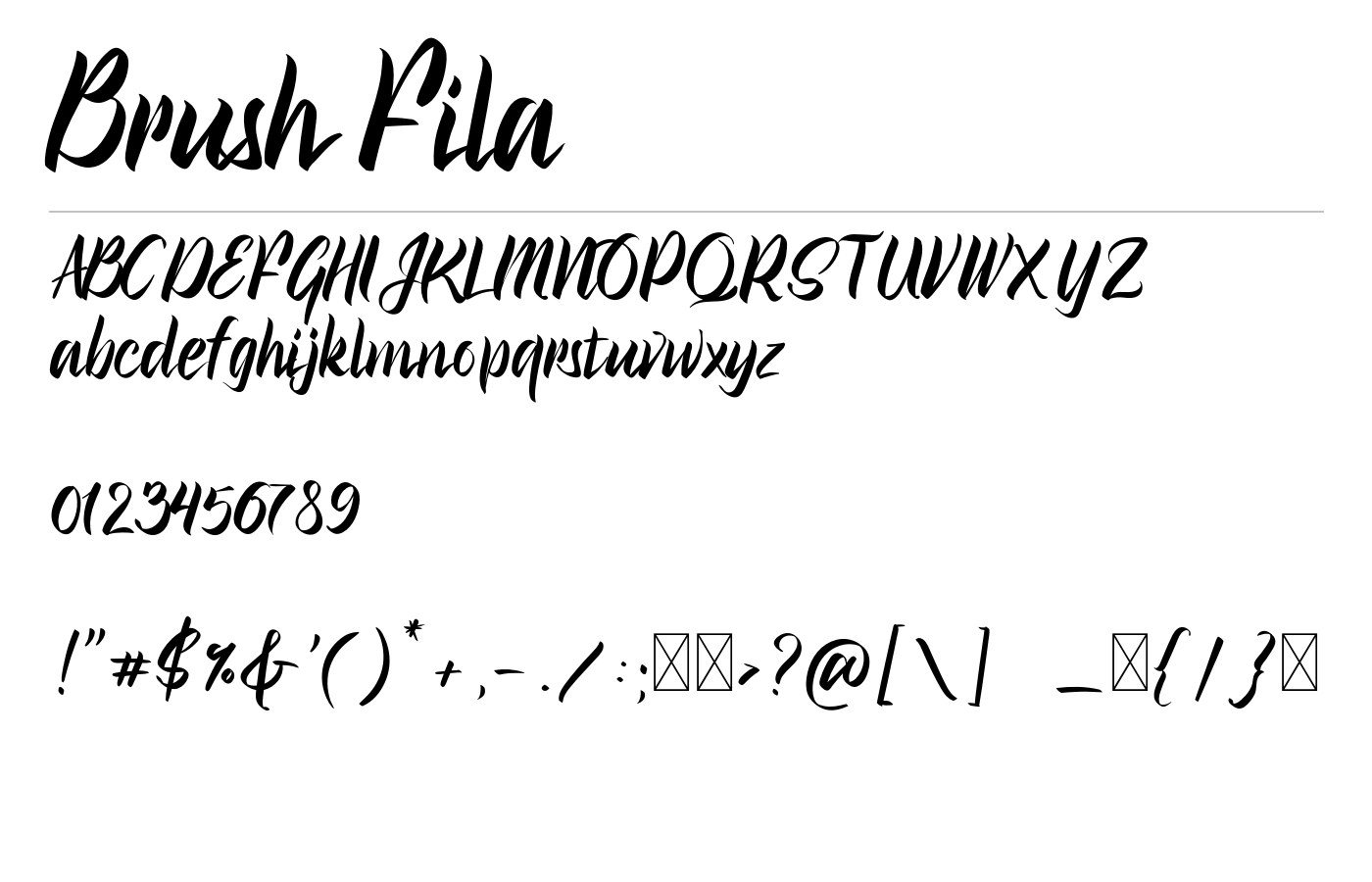
Brush Fila is a lively brush script font with a casual yet expressive style, featuring smooth, flowing strokes and moderate contrast that mimic natural hand lettering. Its slightly condensed letterforms and dynamic curves give it an energetic and personalized feel, making it perfect for creative branding, invitations, and eye-catching headlines where a friendly and artistic touch is desired. This font works well to convey warmth and creativity, ideal for lifestyle, fashion, and artsy projects that benefit from a handcrafted, modern flair.
Brush Fila Font
About Brush Fila Font
| Font family | Brush Fila Font |
| Designer | Marcelo Sodré a.k.a. Cão Fila |